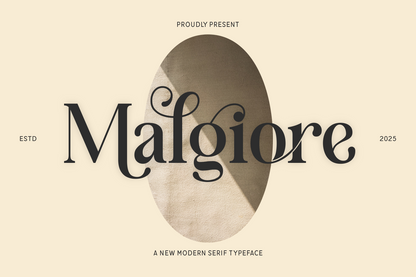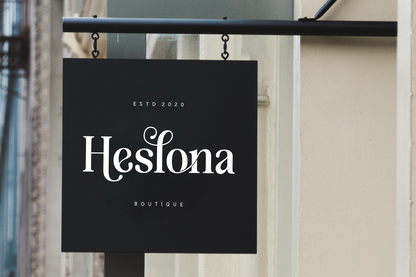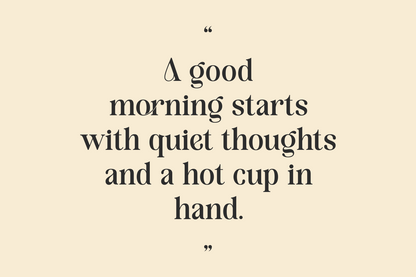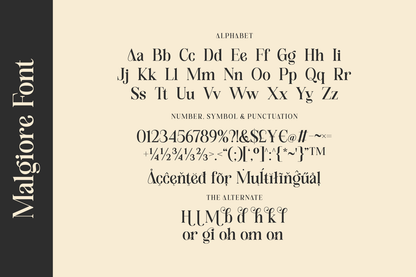
Malgiore is a graceful modern serif typeface that exudes refined sophistication with an artistic soul. Featuring soft contrast, elongated stems, and whimsical swashes, Malgiore strikes the perfect balance between structure and elegance. Its stylish alternates and decorative ligatures give every design a personal, expressive touch.
The font supports multilingual characters, complete punctuation, numerals, and a versatile selection of alternates to enhance customization.